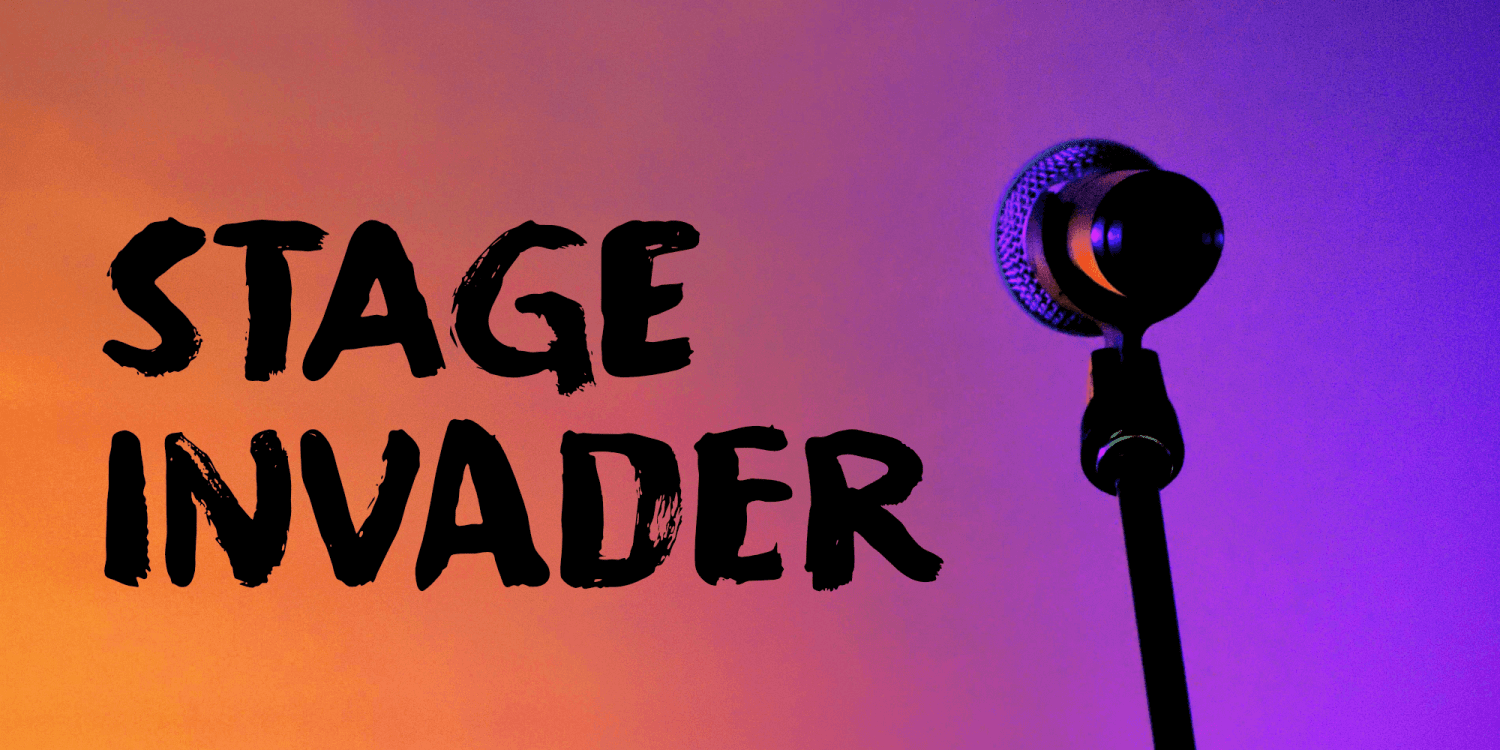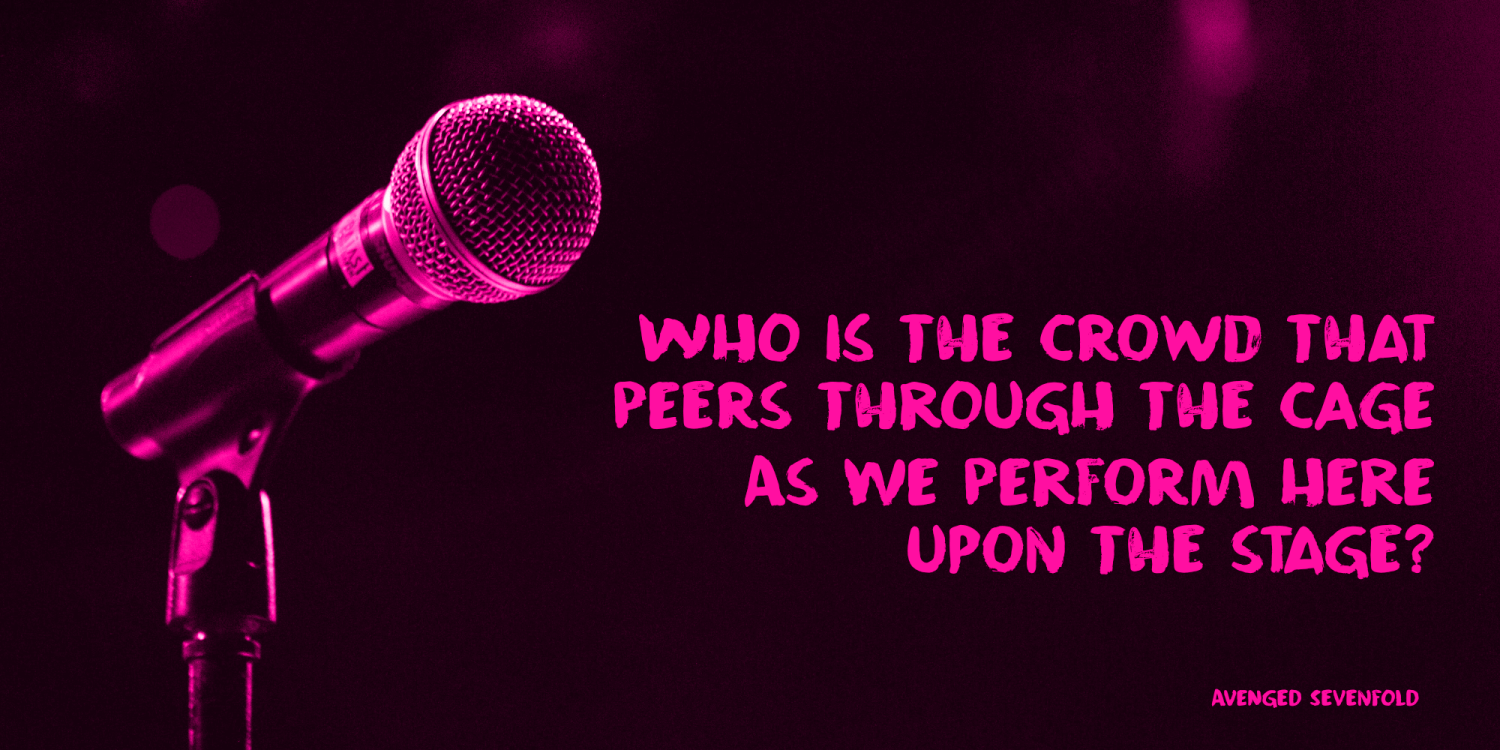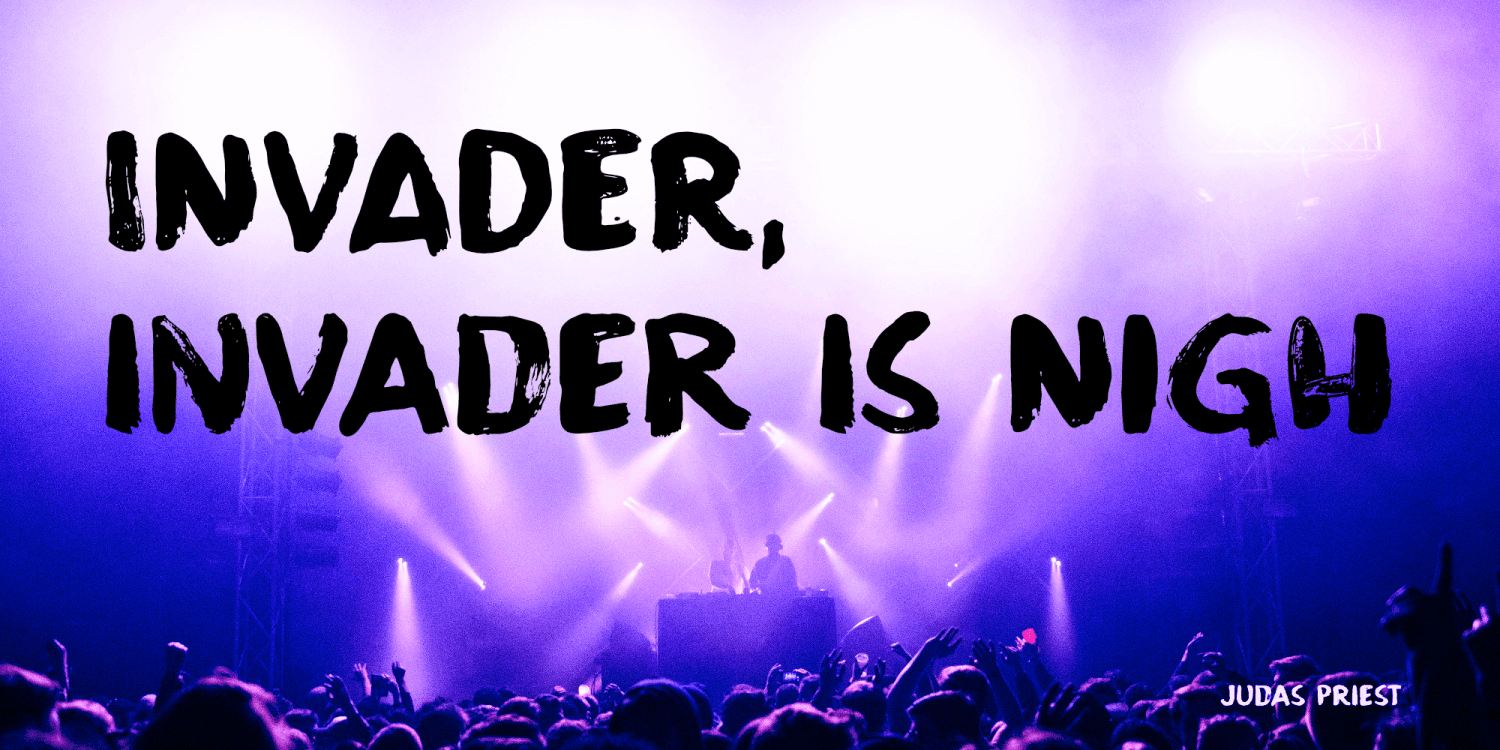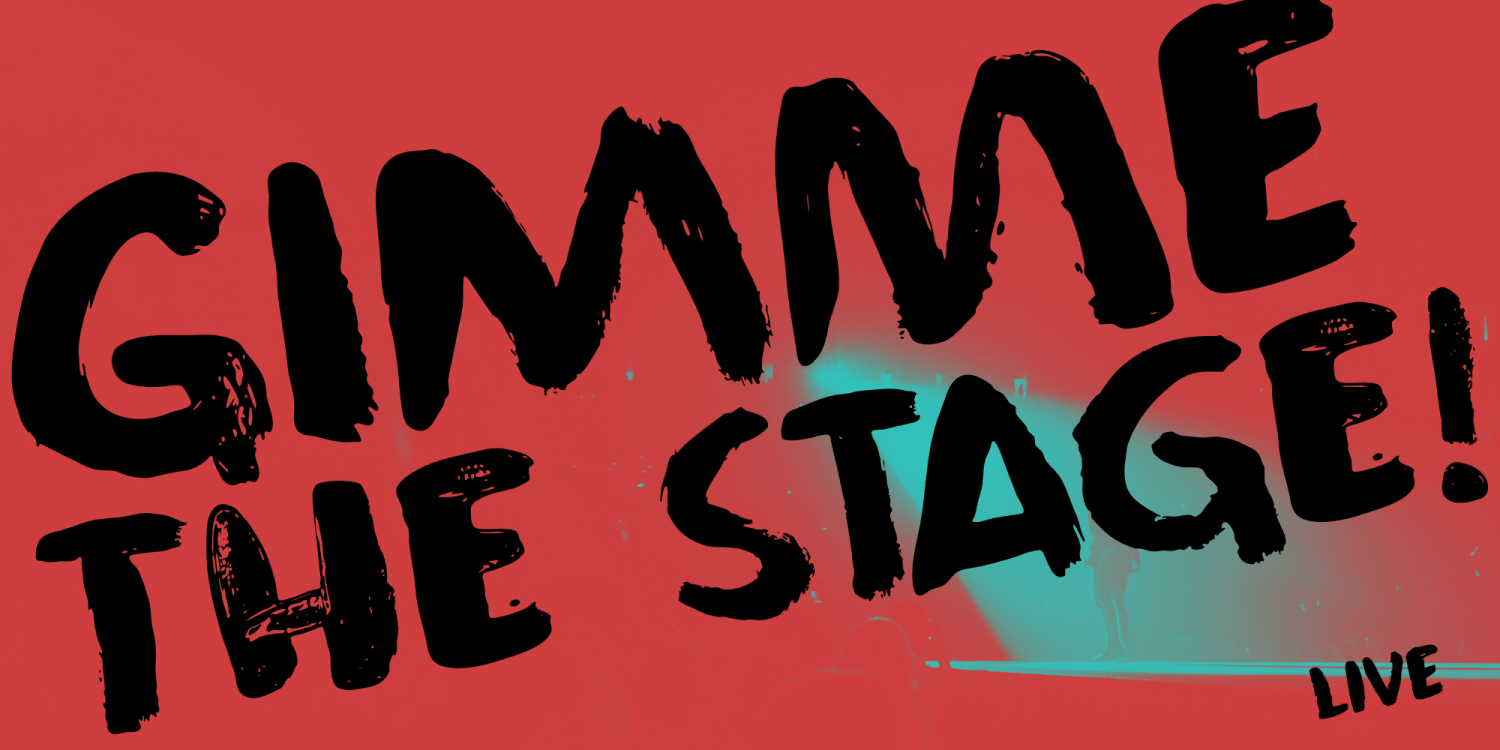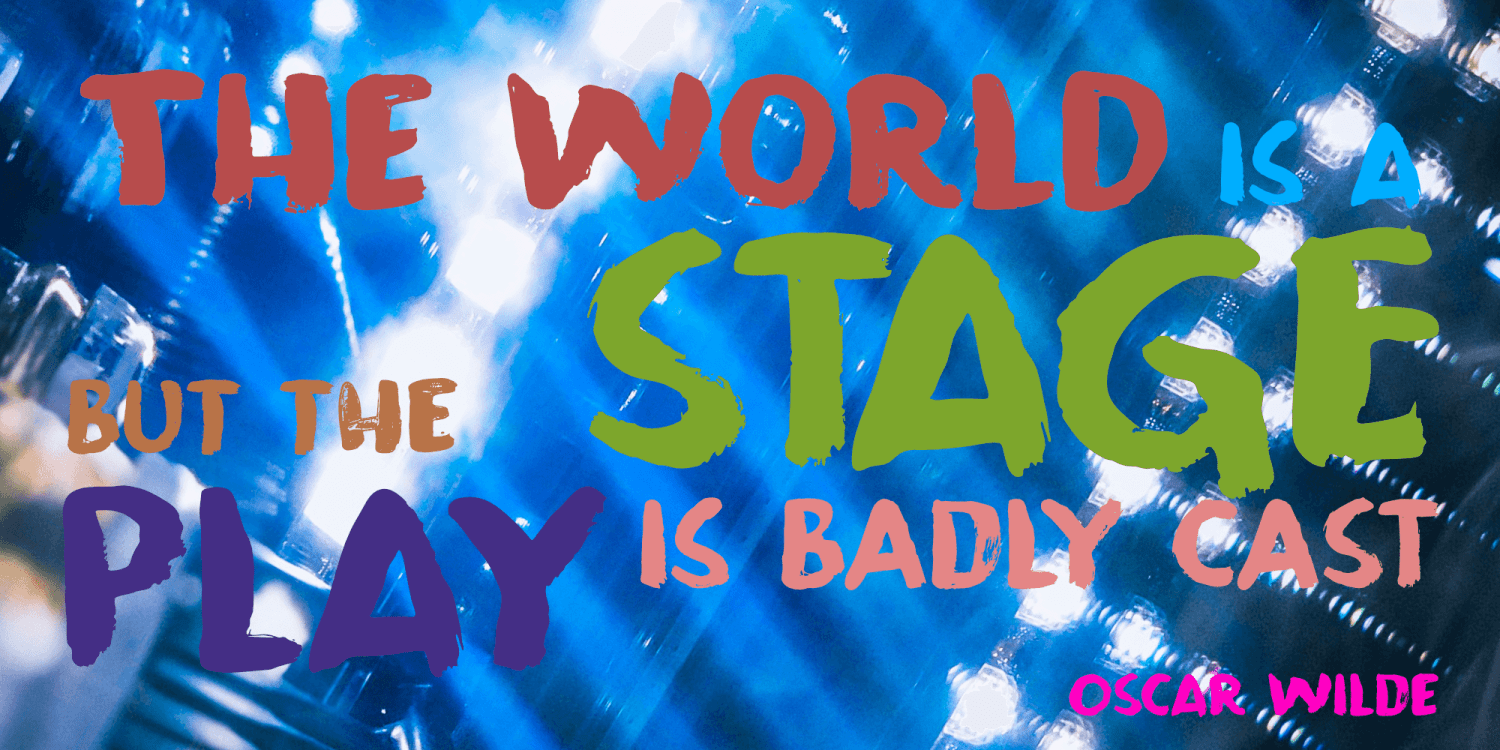
Stage Invader
There was a big climate protest in Amsterdam a couple of days ago. During Greta’s speech, a man jumped onto the stage and grabbed her microphone, because he didn’t approve of what she was saying. Some English media referred to him as ‘the stage invader’, which I really liked. Long story short: I made a ‘protest-ish’ font, using cheap black finger paint from the local store and a brush from my kids. The result is a rather unique font called Stage Invader. And yes, you can use it for your protest signs too!